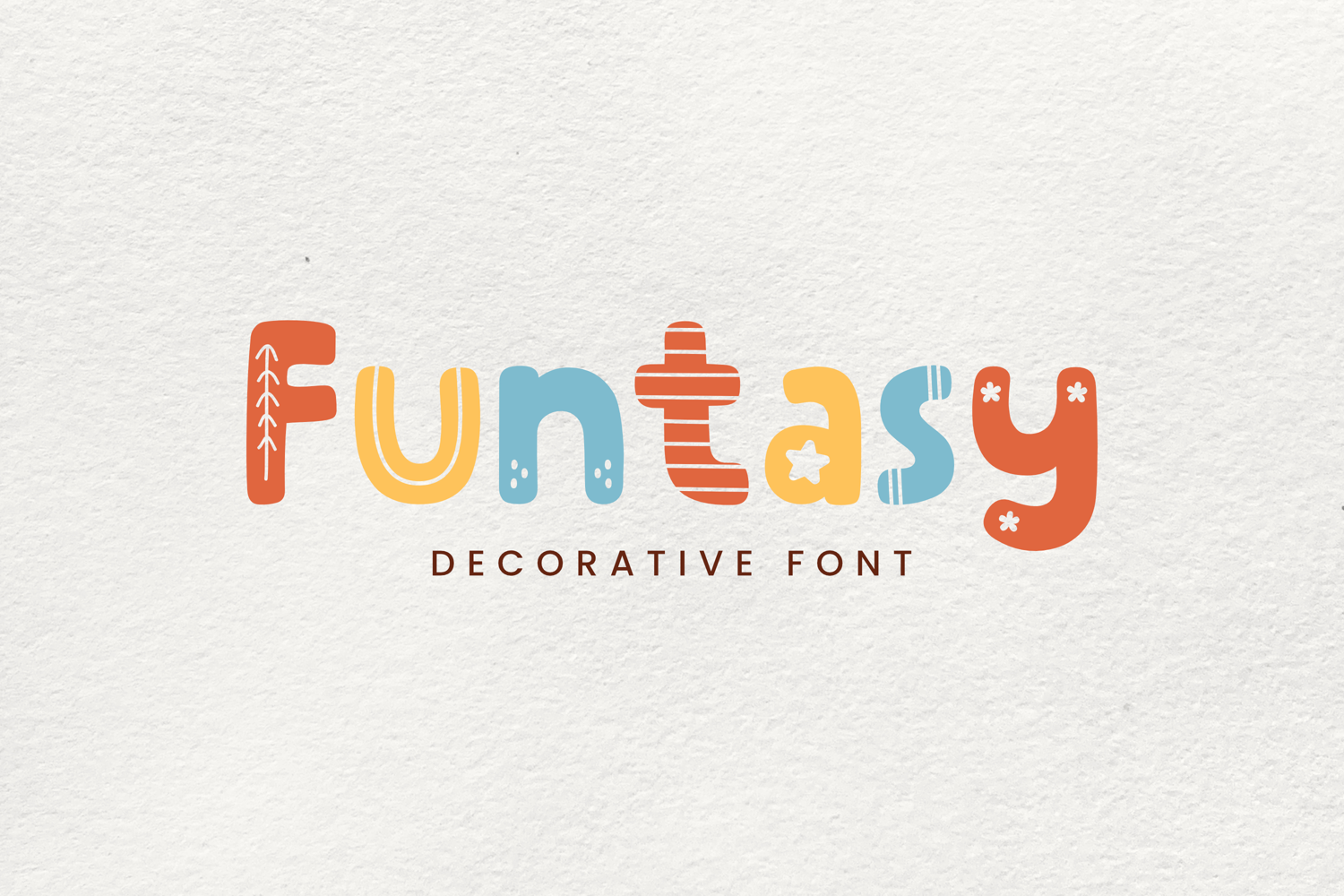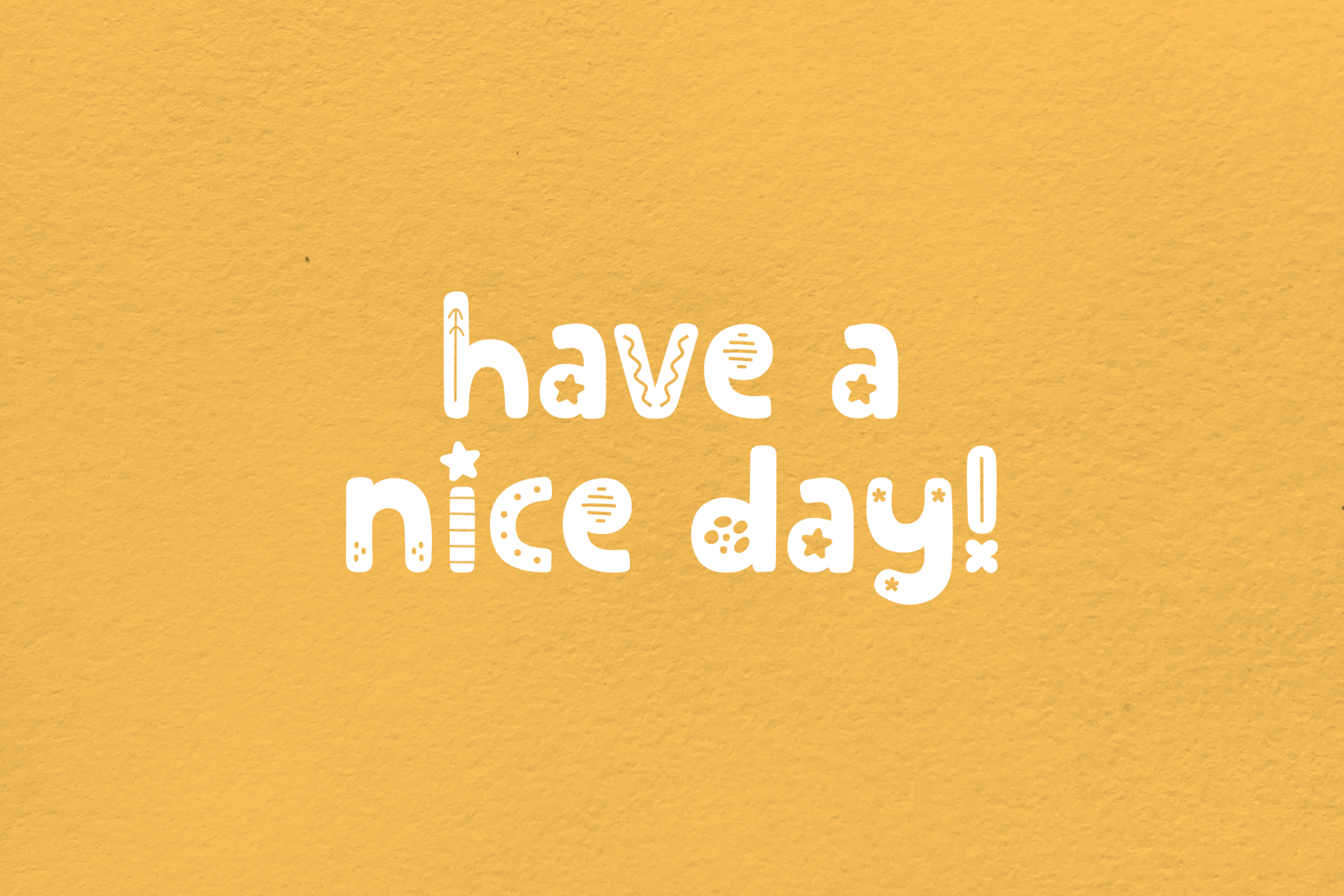
Funtasy is a cheerful decorative font designed to brighten up your creations. With its vibrant appeal, Funtasy brings a playful yet elegant touch to posters, enhances the charm of printed quotes, and infuses digital designs with an unforgettable personality. Ideal for any projects seeking a distinctive and joyful tone, Funtasy lets your creativity bloom in a fun and unique way!
Funtasy